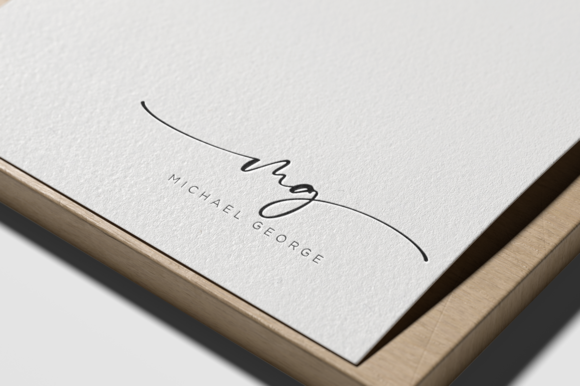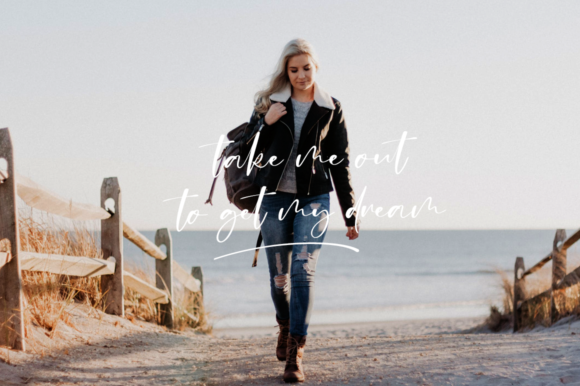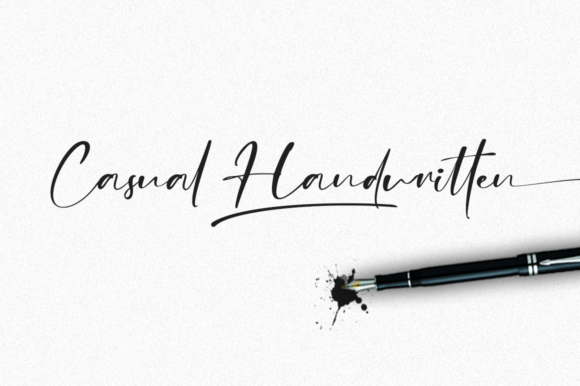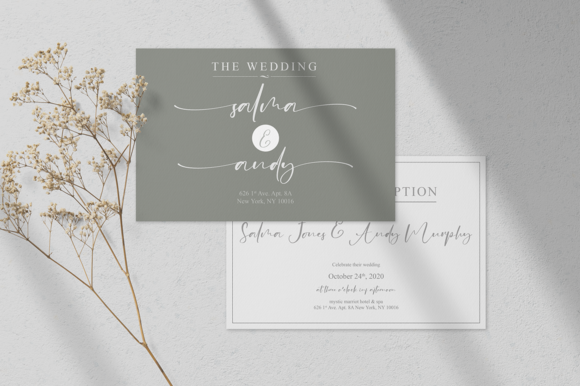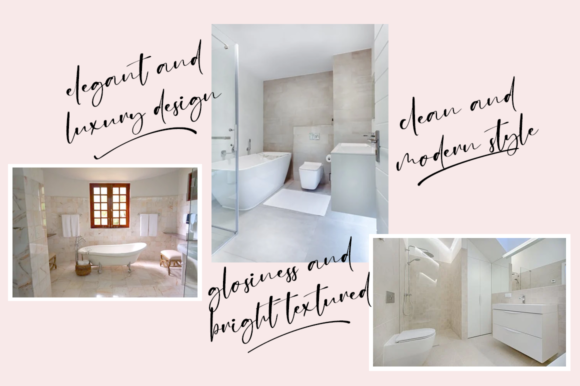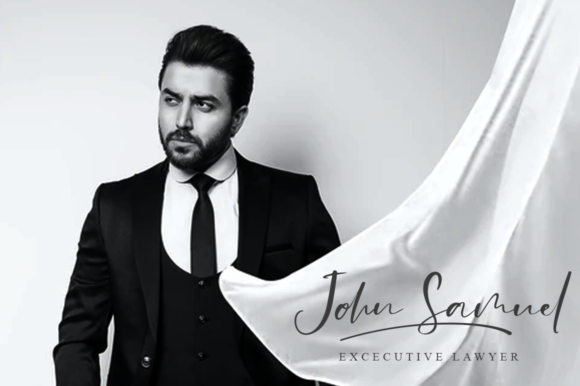
Introducing Challenge Font: Elevate Your Designs with Elegance and Flair
In the world of typography, a font can make all the difference in the success of a design project. Whether you’re a professional designer, a crafty DIY enthusiast, or a business owner looking to brand your venture, the right font can elevate your work from ordinary to extraordinary. This is where Challenge Font comes in – an elegant and flowing handwritten font that is sure to capture your heart and take your designs to new heights.
What Makes Challenge Font Stand Out?
Challenge Font is not just another pretty face in the world of typography. Its unique blend of classic calligraphic influences and modern flair makes it a versatile and sophisticated choice for a wide range of design projects. Here are just a few of the features that set Challenge Font apart:
- Varying Baseline: The font features a varying baseline, which gives it a dynamic and organic feel. This subtle detail adds depth and visual interest to your designs, setting them apart from more static and uniform fonts.
- Smooth Lines and Gorgeous Glyphs: Challenge Font boasts smooth, flowing lines and beautiful glyphs that are sure to impress. From the intricate details to the overall aesthetic, every aspect of this font has been carefully crafted to create a truly stunning effect.
- Stunning Alternates: In addition to its impressive range of glyphs and swashes, Challenge Font also includes a variety of alternates that allow you to customize your text and add even more personality to your designs.
Why Challenge Font is Perfect for Designers and Crafters
Whether you’re a professional designer or a crafty DIY enthusiast, Challenge Font is the perfect choice for anyone looking to add a touch of elegance and sophistication to their work. Here are just a few reasons why:
- Versatility: Challenge Font is incredibly versatile, making it suitable for a wide range of design projects. From wedding invitations and branding materials to packaging and digital media, this font can handle it all.
- Customization: With its range of glyphs, swashes, and alternates, Challenge Font offers endless opportunities for customization. This means that you can tailor your text to fit your unique style and vision.
How to Use Challenge Font in Your Designs
So, how can you use Challenge Font in your designs? Here are a few ideas to get you started:
- Wedding Invitations: Challenge Font is perfect for wedding invitations, with its elegant and sophisticated aesthetic.
- Branding Materials: Use Challenge Font to create a cohesive brand identity that exudes style and sophistication.
- Packaging: Add a touch of luxury to your packaging with Challenge Font, which is sure to make your products stand out on store shelves.
- Digital Media: Challenge Font is also perfect for digital media, including social media graphics, blog posts, and website headers.
| Font Name | Challenge Font |
| Author | Haksen |
In conclusion, Challenge Font is a truly exceptional handwritten font that is sure to capture your heart and elevate your designs to new heights. With its elegant and flowing aesthetic, PUA encoding, and range of customization options, this font is perfect for designers and crafters alike. So why wait? Fall in love with Challenge Font and bring your projects to the highest levels!